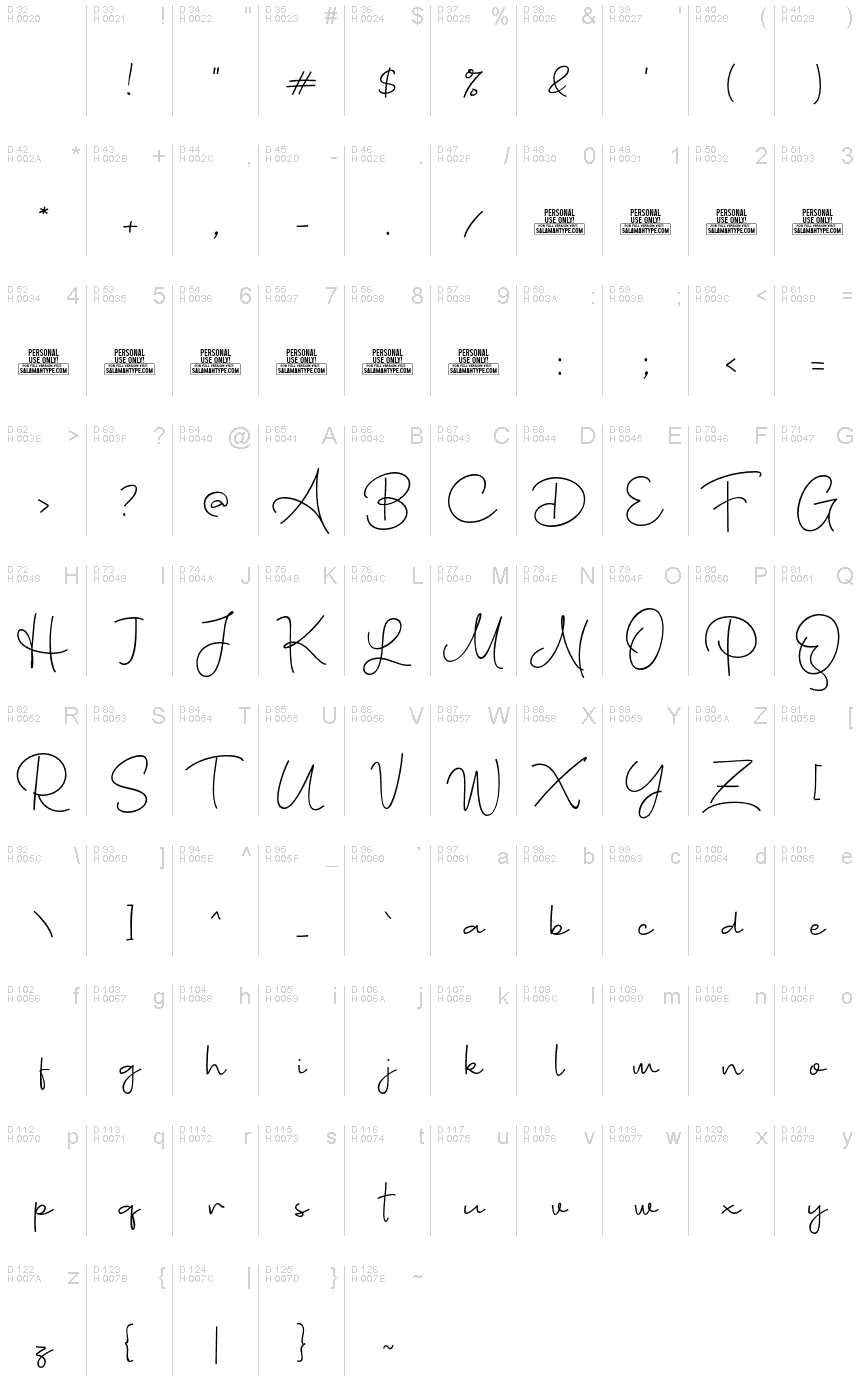
Bugisnia Personal Use
Bugisnia is a captivating handwritten font by Salamahtype.com. With its extra-light weight, this font adds an elegant touch to any project. Perfect for wedding invitations, heartfelt quotes, or feminine branding, Bugisnia brings a sense of delicacy and charm. Whether you're designing a romantic blog post or creating stunning social media graphics, this typeface will make your content stand out. Embrace the versatility of Bugisnia and let your creativity flow in projects that require a touch of sophistication and grace.